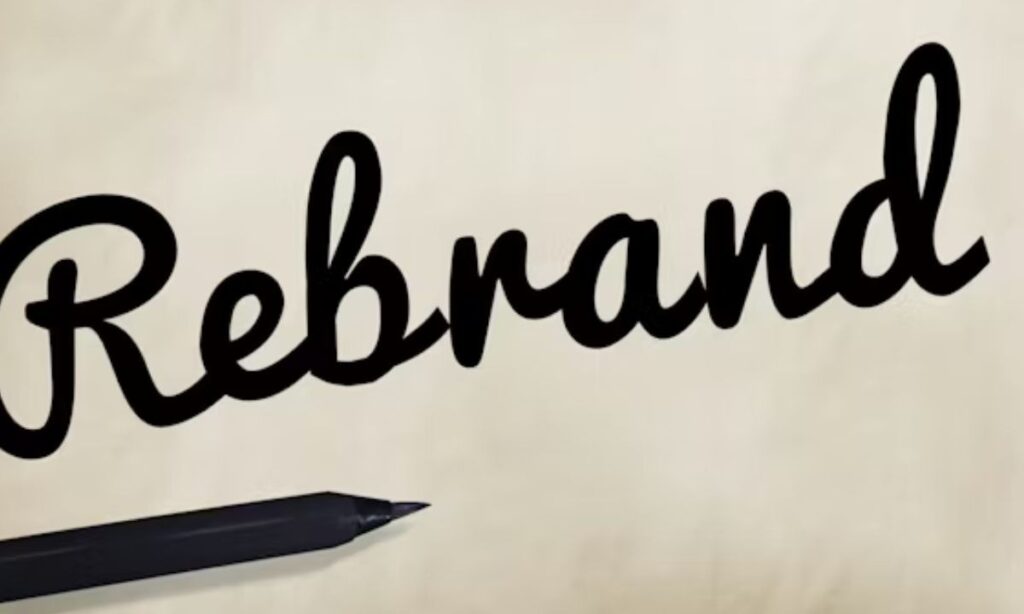
Most people want elegant handwriting on screen but don’t own a calligraphy pen. That’s the real problem. A cursive font generator solves this fast. It uses Unicode characters, so your text works across almost every platform. Type your text, pick a script style, and copy instantly without installing anything.
The cursive letters generator turns plain words into flowing script styles. Use it for personal Instagram notes, aesthetic messages, digital signatures, or even Signatures on digital documents. We tested dozens of these tools, and the ones built on Unicode render cleanly on both mobile and desktop every time.
What Are Cursive Fonts?
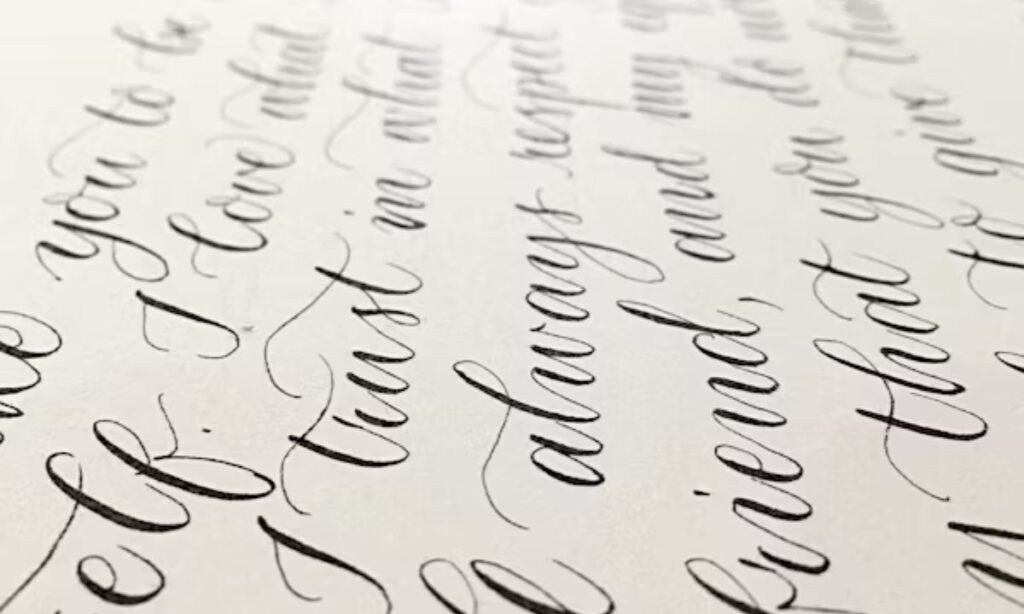
The History Behind Cursive Writing
Cursive writing goes back centuries. Monks and scribes used elegant flowing script styles to write fast and clean. Over time, it grew into calligraphy, where ink and brush created art. Real handwriting back then took years to master. Every letter flowed into the next, making connected handwriting a sign of education and class. That history is why cursive fonts still feel polished today.
How Cursive Fonts Work
A cursive font generator takes your typed text and converts it into rendered digitally script using unicode characters. These characters look like connected handwriting but work as plain text. That means you can copy and paste them anywhere online, and they appear as is on most devices and platforms. The cursive letters generator does not use images. It uses real text characters, so your styled text stays searchable and shareable. Try the cursive fonts copy and paste tool and see how fast it works.
200+ Cursive Font Styles
Classic Script Style
Classic script fonts carry a timeless elegance that never goes out of style. A good calligraphy script brings structure and beauty to any design. Formal script and professional script work best for wedding invitations and business logos. Traditional cursive and old english styles add a vintage, high-end touch. We often use calligraphy bold script when a design needs strong visual weight. Bold script paired with calligraphy elegant details creates a stunning contrast. Elegant script and classic style choices signal quality and sophistication to readers.
Casual Handwriting Fonts
Casual handwriting gives text a natural, human feel that readers instantly connect with. Brush script and script light options work great for social media and small business branding. A pretty script font feels warm and welcoming without trying too hard. Natural handwriting and handwritten script styles make your message feel personal and real. Relaxed cursive and everyday cursive keep the tone light and approachable. We use informal script when a brand wants to feel friendly, not corporate. Casual script and aesthetic handwriting together create a look that feels both stylish and genuine.
Cursive Letters Alphabet & Lettering Styles
The cursive alphabet covers every letter from A to Z in a flowing, connected form. Each letter links to the next, creating smooth connected letters that feel natural to read. Individual cursive letters carry their own character, but they shine brightest when joined together. Script alphabet styles vary widely across different lettering traditions. Some lean elegant and formal, others look loose and playful. Handwritten letters carry this same energy. Cursive lettering gives any text a warm, personal touch. Explore the complete cursive alphabet to understand how lettering styles shift between uppercase and lowercase. Styling individual letters carefully makes a big visual difference. Try cursive fonts copy and paste tools to test different cursive letters styles quickly online.
Step 2: Browse Cursive Styles
Now browse cursive styles and explore all fonts shown in a clean list. Each option gives you an instant preview so you see changes live. You can preview styles, then pick a script style from popular styles or decorative styles. Just choose font style that fits your needs, select style, and hit copy style in one click. That’s how a cursive fonts copy and paste tool saves you real time.
Tips for Using Cursive Fonts Effectively
Good cursive fonts copy and paste usage starts with smart choices. Readability always comes first. Fancy scripts look great in headings but fail in long paragraphs. Pair with sans-serif body text to keep things clean and visually interesting. Context appropriate use matters too. A subtle font fits a wedding invite. A bold script fits a bakery logo. From my work with local business branding, matching formality to the setting makes the biggest difference. A coffee shop and a law firm need very different styles. Pair with serif fonts for a classic, elegant feel. Follow these best practices and your design stays sharp, professional, and easy to read.
What is the best cursive font for signatures and professional use?
We recommend elegant script styles like Pacifico or Great Vibes. They look clean and professional. Both work great for signatures and branding. Many designers trust these for business use.
Are these cursive fonts copy and paste compatible with Instagram, Etsy, and Shopify?
Yes. Our cursive fonts copy and paste directly into any platform. They work on Instagram, Etsy, and Shopify without issues. No extra steps needed at all.